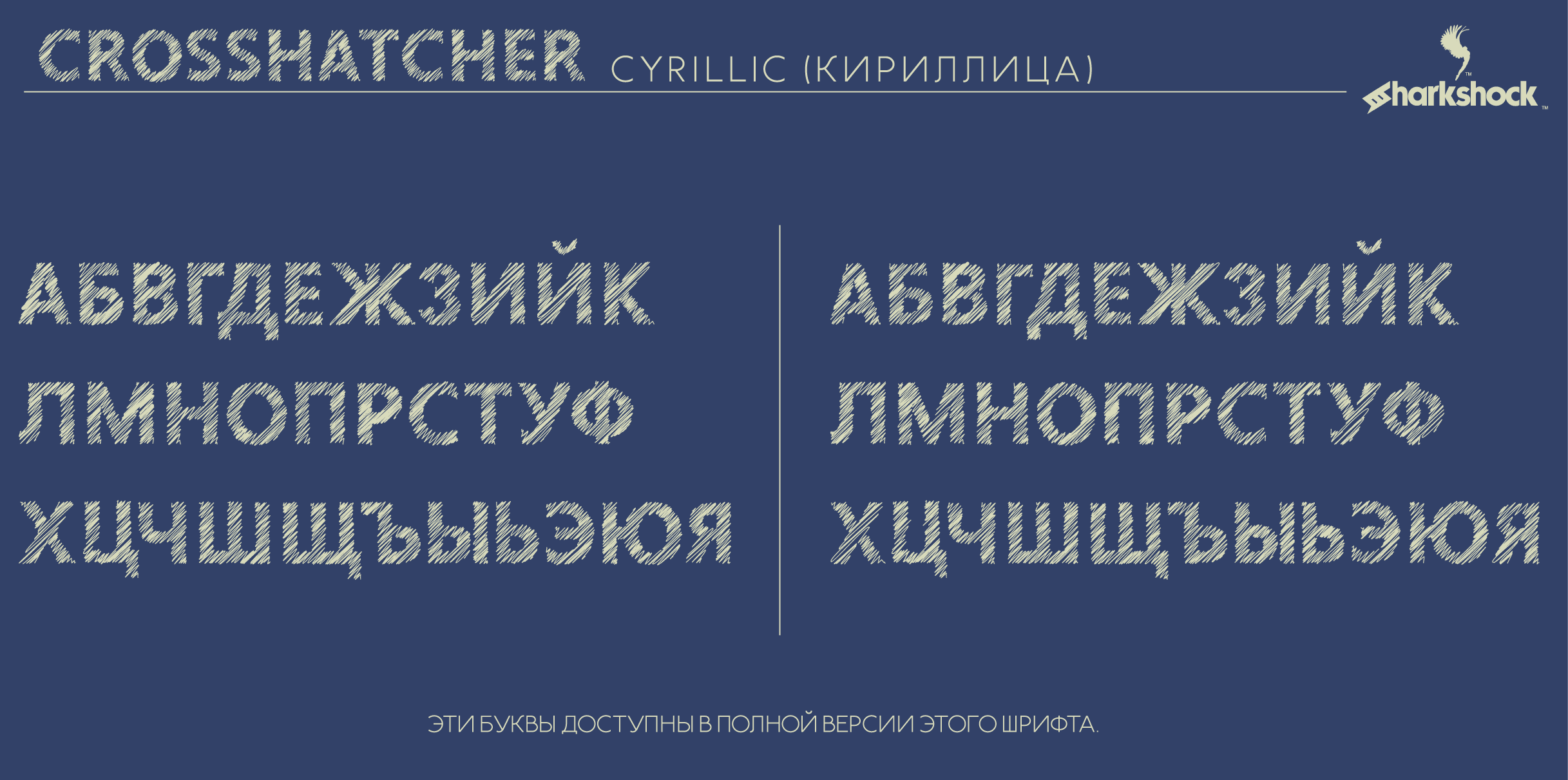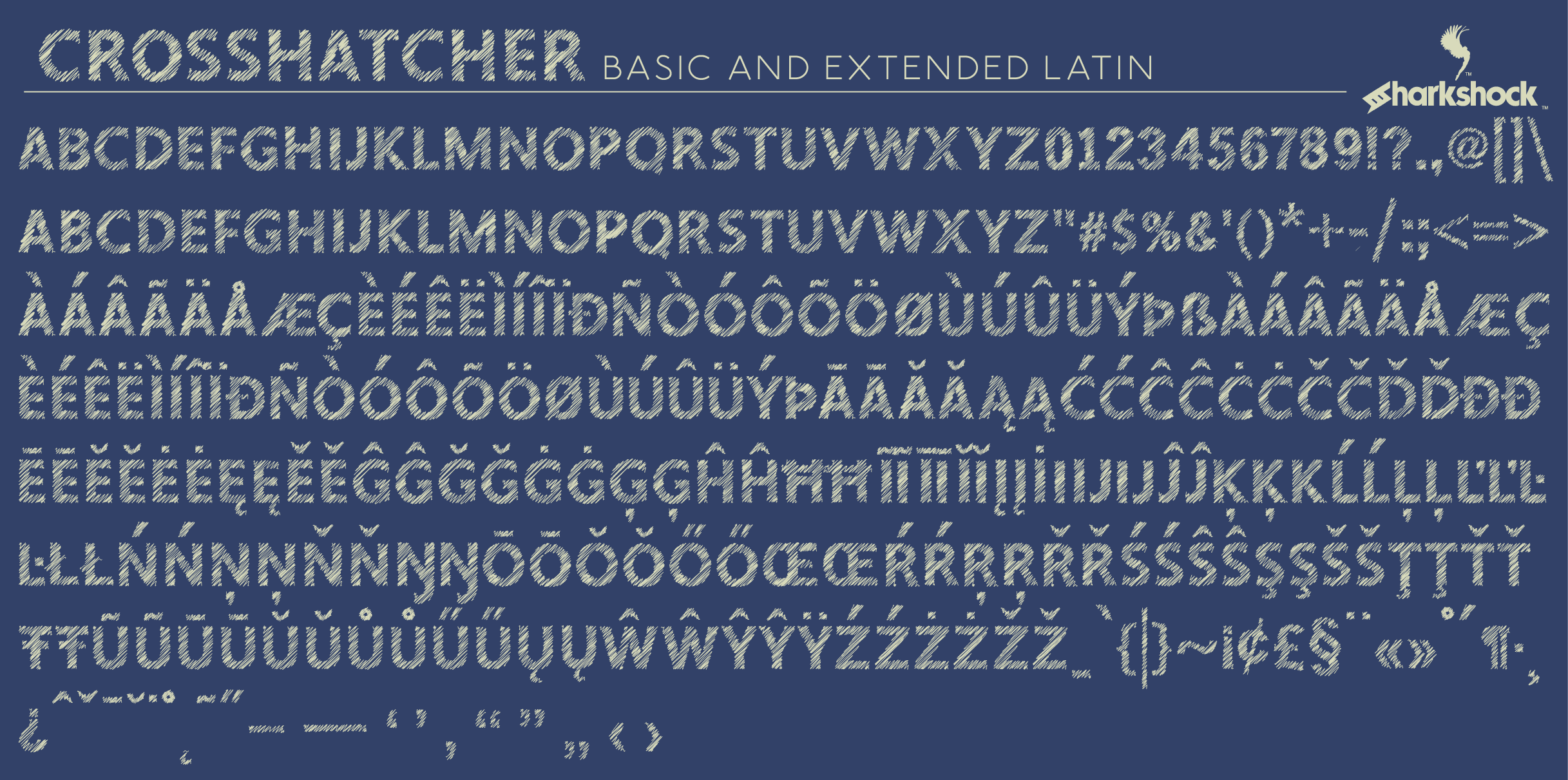
Introducing Crosshatcher Font: The Ultimate Display Font for Creative Projects
Are you a designer or crafter looking for a unique and eye-catching font to elevate your creative projects? Look no further than Crosshatcher Font, an all-caps sans font that mimics the appearance of scribble across a stencil. With its distinctive style, Crosshatcher Font is perfect for making a statement in clothing, advertisements, publishing, and more.
The Unique Charm of Crosshatcher Font
At first glance, Crosshatcher Font may appear to be a childish mess, with its scribbled lines and irregular shapes. However, as you take a step back or reduce the font size, the magic happens. The individual elements come together to form a cohesive and stylish display font that’s sure to grab attention. This unique charm makes Crosshatcher Font an excellent choice for designers and crafters looking to add some personality to their work.
Key Features of Crosshatcher Font
Crosshatcher Font is more than just a visually appealing font – it’s also packed with features that make it easy to use and versatile. Some of the key features include:
- All-caps design: Crosshatcher Font is designed specifically for display purposes, with an all-caps style that’s perfect for headlines, titles, and more.
- Basic Latin, extended Latin, diacritics, Cyrillic, punctuation, and kerning: This font includes a wide range of characters, making it suitable for use in a variety of languages and projects.
- Stencil-inspired design: The font’s stencil-inspired design gives it a unique, hand-crafted feel that’s perfect for adding a personal touch to your work.
Perfect for Display Purposes
Crosshatcher Font is specifically designed for display purposes, making it perfect for use in a variety of creative projects. Some of the ideal uses for this font include:
- Clothing and apparel: Add a bold, eye-catching touch to your clothing and apparel designs with Crosshatcher Font.
- Advertisements and marketing materials: Make your advertisements and marketing materials stand out with this unique and attention-grabbing font.
- Publishing and editorial design: Use Crosshatcher Font to add a touch of personality to your publishing and editorial designs, such as book covers, magazine titles, and more.
Tips for Using Crosshatcher Font
To get the most out of Crosshatcher Font, here are a few tips to keep in mind:
- Experiment with font sizes: The unique charm of Crosshatcher Font really comes alive at smaller sizes or from a distance. Experiment with different font sizes to find the perfect balance for your project.
- Pair with complementary fonts: Crosshatcher Font is a bold, attention-grabbing font. Pair it with complementary fonts to create a visually appealing contrast.
- Use it sparingly: Due to its bold and eye-catching nature, it’s best to use Crosshatcher Font sparingly. Use it to draw attention to a specific element or message, rather than overwhelming your design with too much text.
Crosshatcher Font is a unique and versatile display font that’s perfect for designers and crafters looking to add a touch of personality to their creative projects. With its stencil-inspired design, all-caps style, and wide range of characters, this font is sure to make a statement in clothing, advertisements, publishing, and more. Whether you’re looking to add a bold touch to your designs or simply want to try something new, Crosshatcher Font is definitely worth checking out.